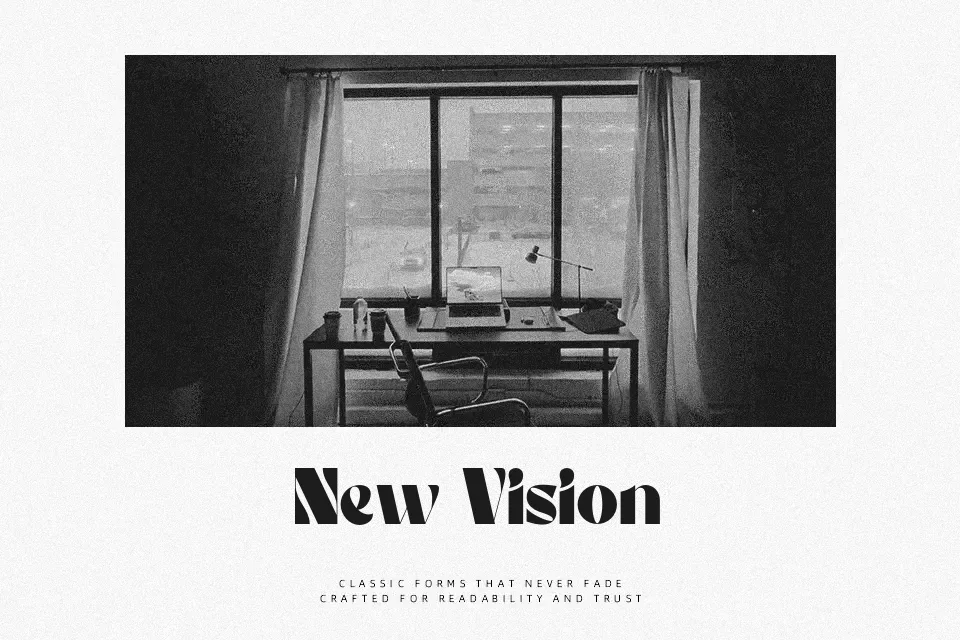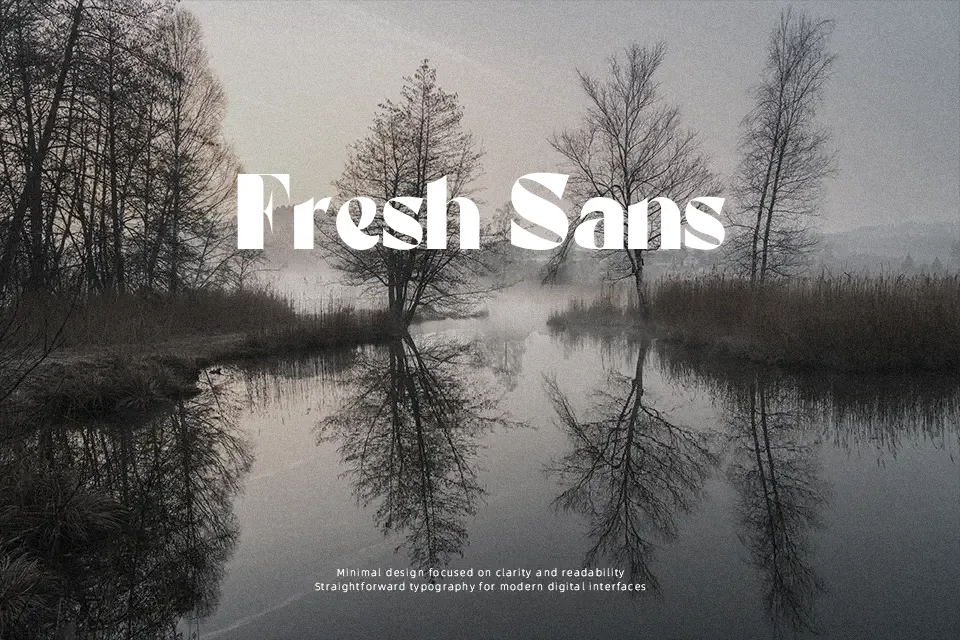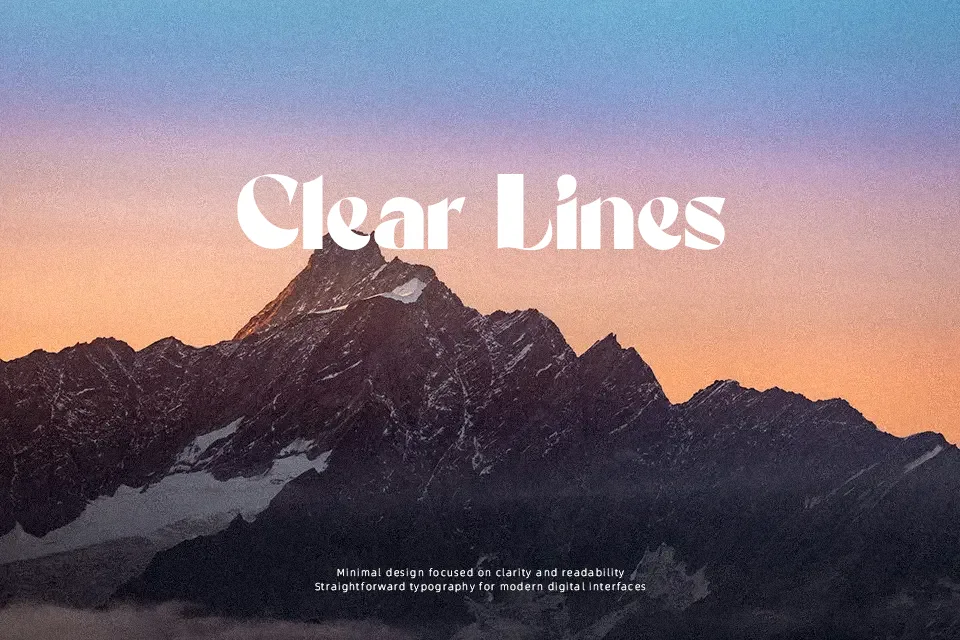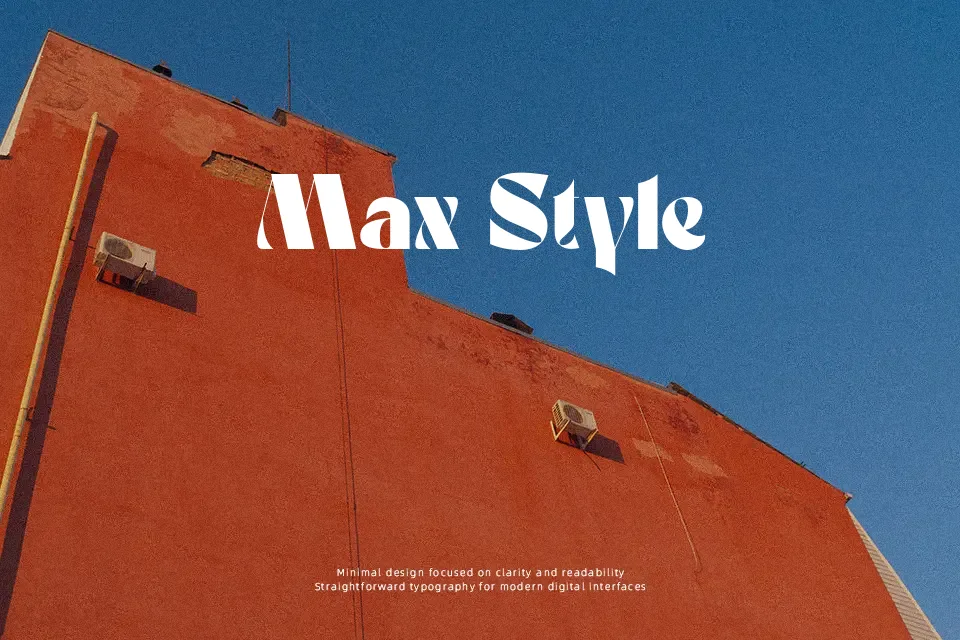
Beckan Font
Designed by Valentino Vergan
Built on the tension between thick strokes and razor-thin hairlines, Beckan carries a distinctly Art Nouveau sensibility—ornate without tipping into clutter. The high contrast between stroke weights gives it visual authority at display sizes, making it a natural choice for magazine mastheads, vintage-inspired packaging, and retro brand identities. It comes in two styles—Regular and Oblique—offering a subtle directional shift when you need added momentum. Pair it with a light sans-serif body font and it holds the composition well. That said, the thin hairlines become a liability at small sizes; web body text or dense layouts will expose its readability limits fast. Best used as a headline workhorse, not a workhorse for everything.
Best For:- Vintage magazine cover headers
– Retro product packaging and label design
– Art Nouveau-inspired brand logos
– Editorial pull quotes or poster titles
Not Ideal For:- Small-size body text or captions
– Corporate or tech presentations requiring a clean, neutral tone
– Mobile UI labels where thin hairlines render poorly
– Long reading passages in print or digital editorial
Perfect for advertising, branding, and editorial, with a bold and display style.